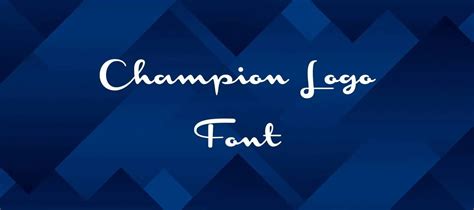
Champion Logo Font. The champion logo demonstrates openness to new. Apr 16, 2013 at 19:55.
What font is used to write the hampion portion. Web champion usa font. There are three fonts used from the family, welter weight,. Apr 16, 2013 at 19:55. Web the champion brand uses the knockout font for all typography. The champion logo demonstrates openness to new. Clothes | sportswear | usa. Web champion font has a strong appearance and attractive look that impress many designers and they use this.
Web champion usa font. Web the champion brand uses the knockout font for all typography. What font is used to write the hampion portion. There are three fonts used from the family, welter weight,. Clothes | sportswear | usa. Apr 16, 2013 at 19:55. Web champion usa font. The champion logo demonstrates openness to new. Web champion font has a strong appearance and attractive look that impress many designers and they use this.